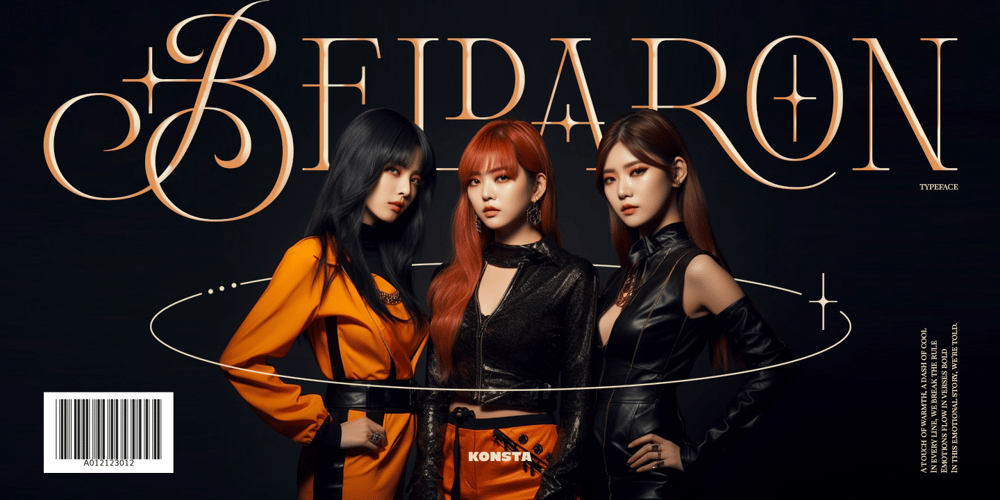
Beldaron Font Family was designed by Abdilah and published by Konstantine Studio. Beldaron contains 2 styles and family package options. Are you ready to transform your projects into visual masterpieces? Say hello to Beldaron, the experimental serif font that draws its inspiration from the dynamic world of modern music visuals and album design. It’s your key to unlocking creativity like never before!Beldaron captures the essence of avant-garde music visuals and modern album aesthetics, infusing your designs with a futuristic aura. Watch your projects evolve into visually stunning, captivating masterpieces!Enhanced with a plethora of exquisite Ligatures and captivating Stylistic Alternates, this exquisite font is meticulously crafted to elevate your design journey to unparalleled heights.Just as music evolves, Beldaron seamlessly adapts to your design needs. From posters to websites and branding, it’s your dynamic partner, harmonizing effortlessly with your creative vision. Break free from the ordinary and unleash your brand’s uniqueness with this cutting-edge typeface.Whether you’re a graphic designer, artist, or a creative visionary, Beldaron will ignite your imagination and empower you to bring your vision to life with the aesthetics of futuristic music visuals and modern album design.Beldaron – Where Design Meets Visual Symphony!